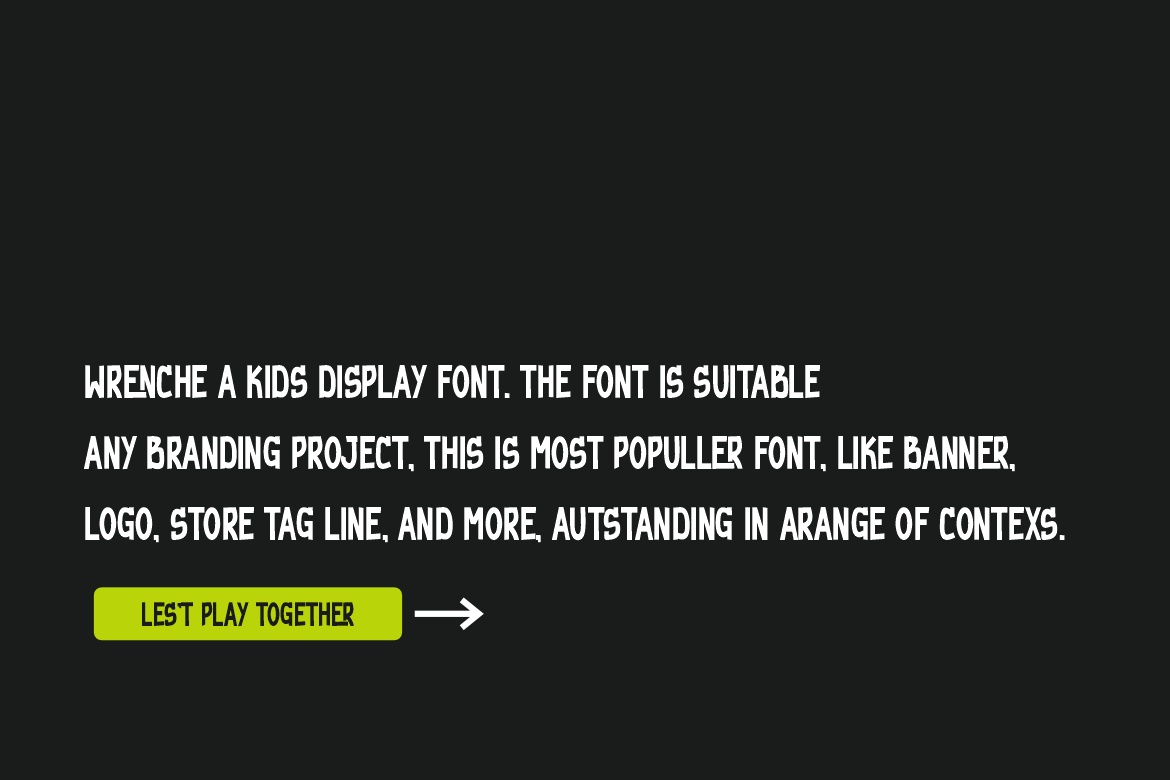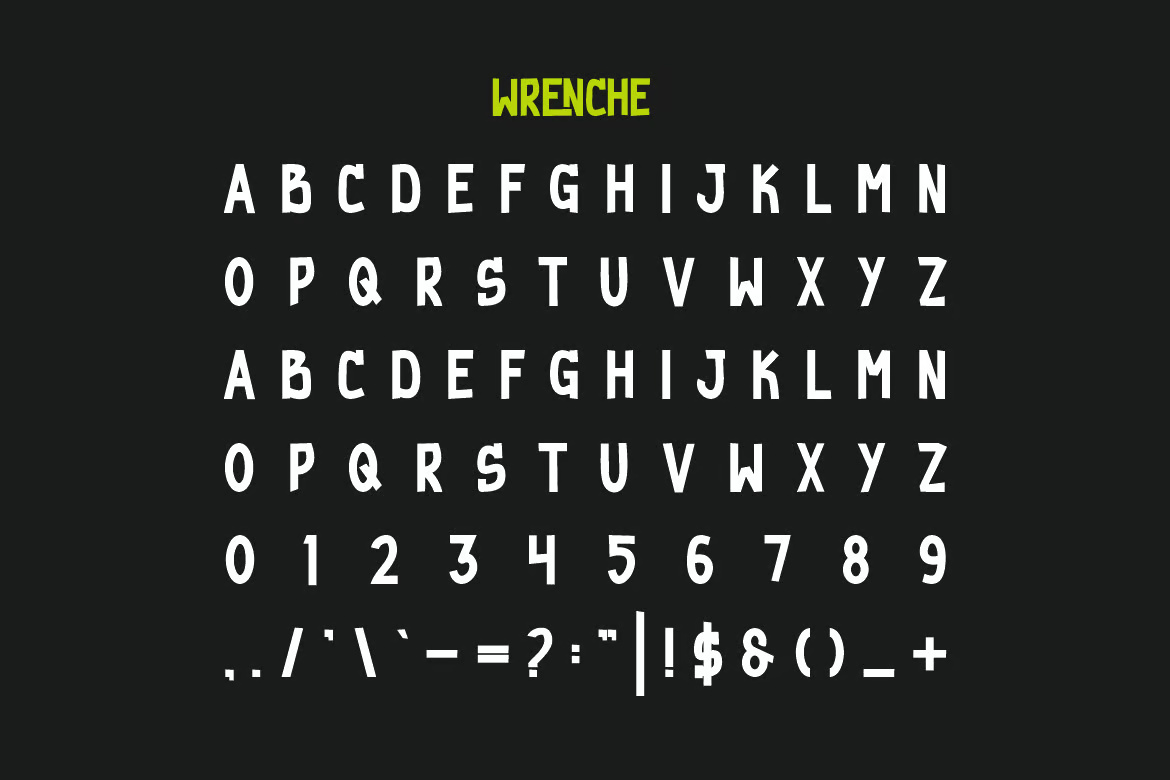
Wrenche – Adventure & Outdoor Font
Wrenche Font is a bold and authentic display font, perfect for making a statement in any design. With its unique and eye-catching style, this font is ideal for logos, posters, branding, and various creative projects. We offer a diverse collection of themes and font styles to suit your needs. Visit our profile to explore a wide range of fonts designed for different aesthetics and purposes.
Wrenche – Adventure & Outdoor Sans-Serif Font